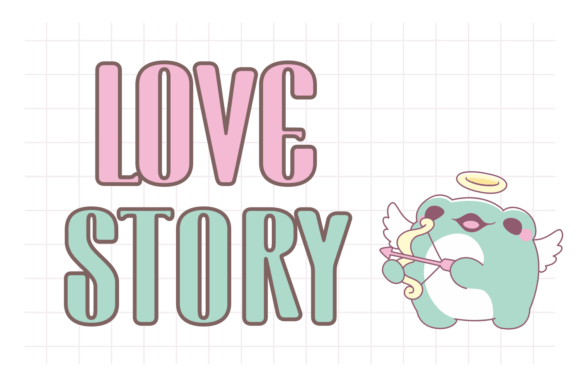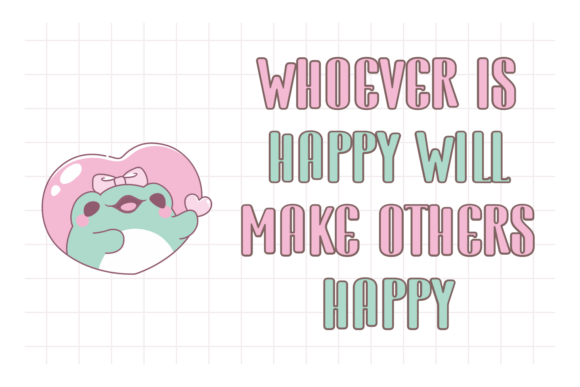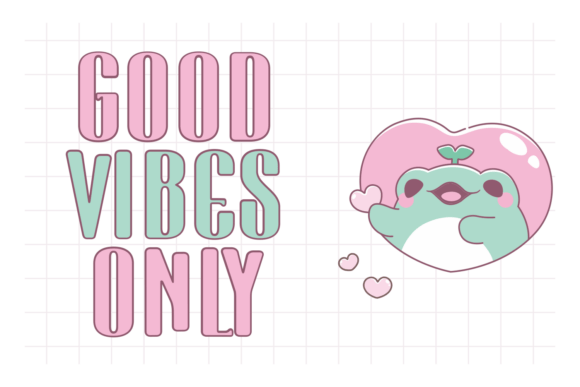
Discover the Charm of “Cover Heart” Font: A Versatile Typographic Tool
In the world of typography, fonts play a crucial role in conveying emotions and setting the tone for various design projects. Among the numerous fonts available, “Cover Heart” stands out as a unique and captivating choice, particularly for designers and crafters looking to infuse their work with a touch of charm and femininity. This article explores the characteristics, uses, and benefits of the “Cover Heart” font, making it an essential read for anyone looking to elevate their design game.
What is “Cover Heart” Font?
“Cover Heart” font is a versatile and visually appealing typographic tool, drawing inspiration from a blend of display, love, and fashion fonts. Its design is centered around bringing a sense of elegance and playfulness, making it an excellent choice for projects that require a personal touch. Whether you’re working on crafting, social media content, or headlines, “Cover Heart” offers a distinctive flair that can set your work apart.
Key Features of “Cover Heart” Font
- Hand-Drawn Elements: One of the standout features of “Cover Heart” font is its hand-drawn elements. This aspect brings an authentic and artisanal touch to your designs, making them look more personalized and unique.
- Cute and Popular Styles: The font embodies cute and popular styles, making it perfect for projects aimed at a younger audience or those who appreciate a playful aesthetic.
- Feminine Charm: “Cover Heart” is designed to bring a sense of charm and femininity to your designs. Its elegant and soft appearance makes it an ideal choice for fashion, beauty, and lifestyle projects.
- Versatility: The font’s versatility allows it to be used across various platforms and design projects. From crafting and DIY blogs to social media posts and professional headlining statements, “Cover Heart” can adapt to different contexts with ease.
Uses of “Cover Heart” Font
The “Cover Heart” font is incredibly versatile, making it suitable for a wide range of applications. Here are some of the most popular uses:
- Crafts and DIY Projects: For crafters and DIY enthusiasts, “Cover Heart” can add a personal and artistic touch to project titles, descriptions, and promotional materials.
- Social Media Posts: Stand out on social media platforms with eye-catching headings and captions that utilize the charming and feminine appeal of “Cover Heart.”
- Headlining Statements: Use “Cover Heart” to create compelling headlines for blog posts, articles, and marketing materials that require a touch of elegance and playfulness.
- Fashion and Beauty Content: The font’s stylish and feminine design makes it a perfect fit for fashion and beauty blogs, magazines, and social media content.
Benefits of Using “Cover Heart” Font
Choosing “Cover Heart” font for your design projects comes with several benefits:
- Unique Aesthetic: The font provides a unique aesthetic that can help your designs stand out in a crowded digital landscape.
- Emotional Connection: The charming and feminine appeal of “Cover Heart” can help create an emotional connection with your audience, making your content more relatable and engaging.
- Time-Saving: With its ready-to-use design, “Cover Heart” font saves you time that would otherwise be spent on creating custom typography.
- Easy to Read: Despite its decorative nature, “Cover Heart” remains easy to read, ensuring that your message is communicated effectively.
| Author | Anto (7NTypes) |
“Cover Heart” font is a versatile and visually appealing typographic tool that can bring a sense of charm and femininity to your design projects. Its hand-drawn elements, cute and popular styles, and elegant appearance make it an excellent choice for crafts, social media posts, headlining statements, and more. By incorporating “Cover Heart” into your designs, you can create unique, engaging, and memorable content that resonates with your audience. Whether you’re a designer, crafter, or social media enthusiast, “Cover Heart” font is sure to become a valuable addition to your typographic arsenal.